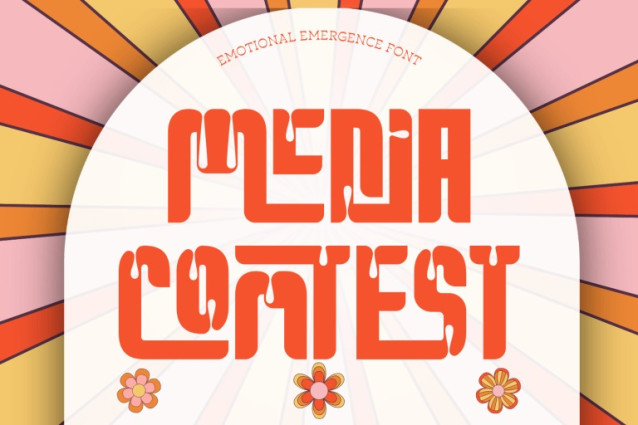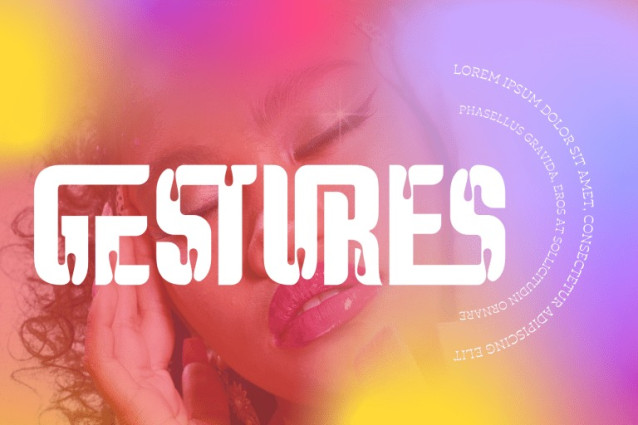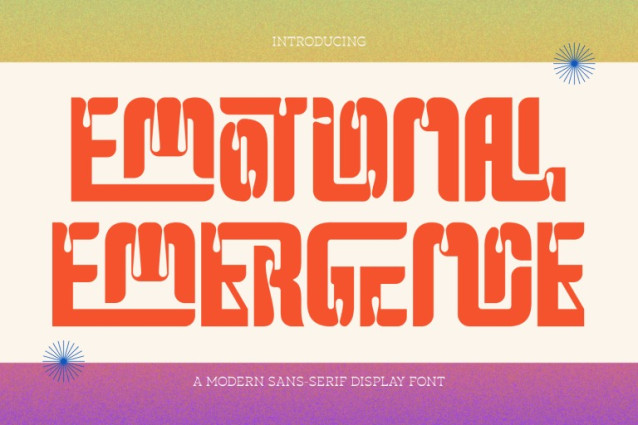
EMOTIONAL EMERGENCE FONT is a bold psychedelic modular sans-serif display typeface inspired by retro 70s aesthetics and fluid graphic experimentation. Built from strong geometric forms and enhanced with distinctive dripping terminals, this font delivers a playful yet powerful visual statement. Its heavy block structure and rounded construction create a solid typographic presence, while the unique drip-inspired details add personality and movement. EMOTIONAL EMERGENCE is perfect for music posters, festival branding, streetwear graphics, packaging design, and eye-catching headlines.
🔤Features:
Uppercase & Lowercase Letters
Around 100 Special Ligatures & Alternates
Accented Characters for multilingual support
🔤About 100 ligatures combined with Stylistic Alternates Font:
AC AD AL AN AR AS AT AU AV BE CA CE CH CO CT DE DI EA EC ED EE EL EM EN EP ER ES ET FE FO FR GE HA HE HI HO IE IC IL IN IO IR IS IT JU KE LA LE LI LL LO LY MA ME MI NC ND NE NG NO NT NS OC OF OM ON OO OP OR OT OU OW PA PR RA RD RE RI RO RS RT SE SH SI SO SS ST TA TE TH TI TO TR TT UM UN UR VE WI WO